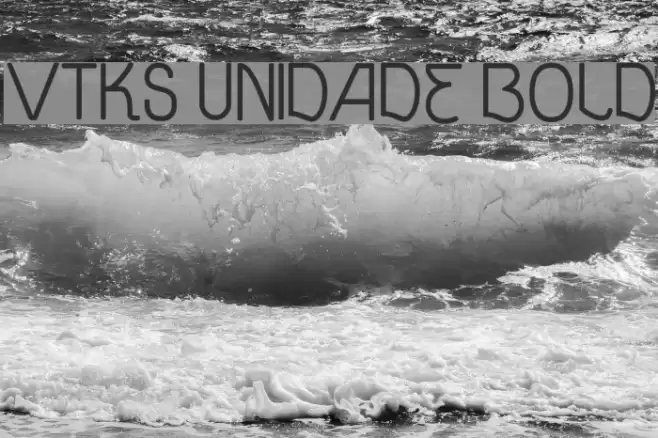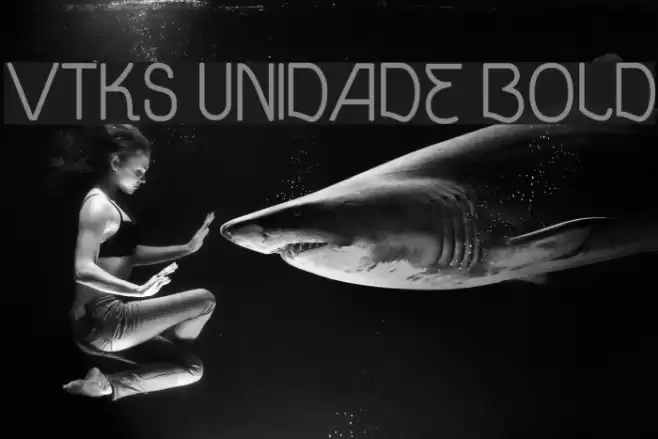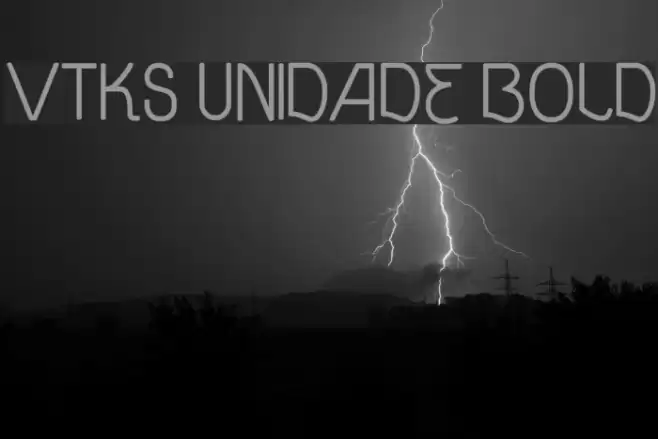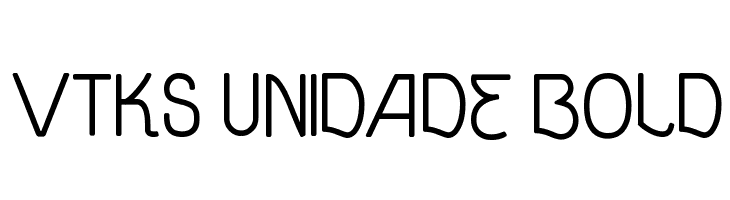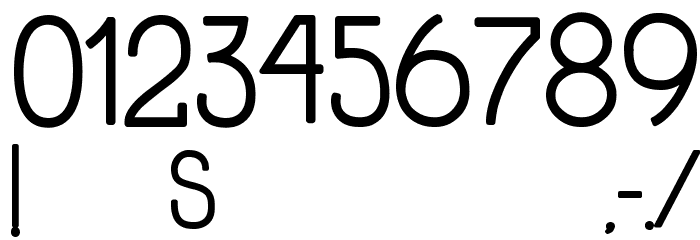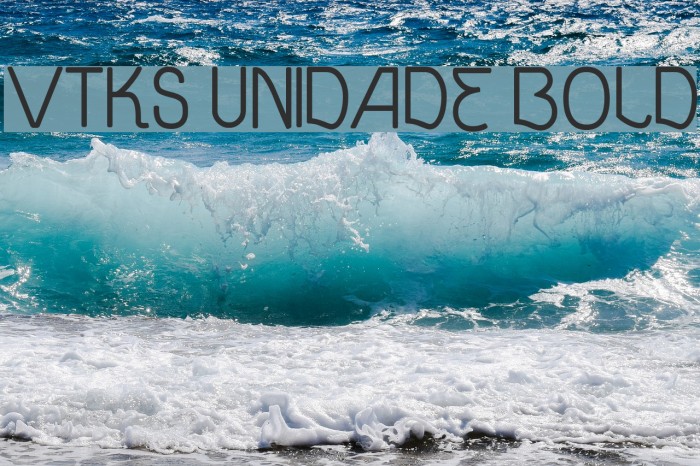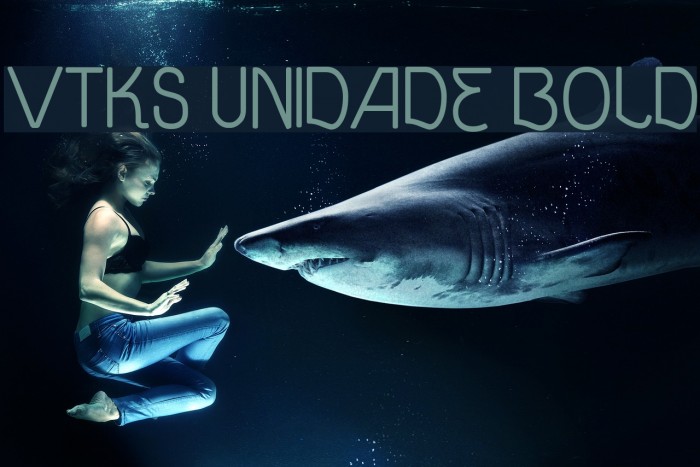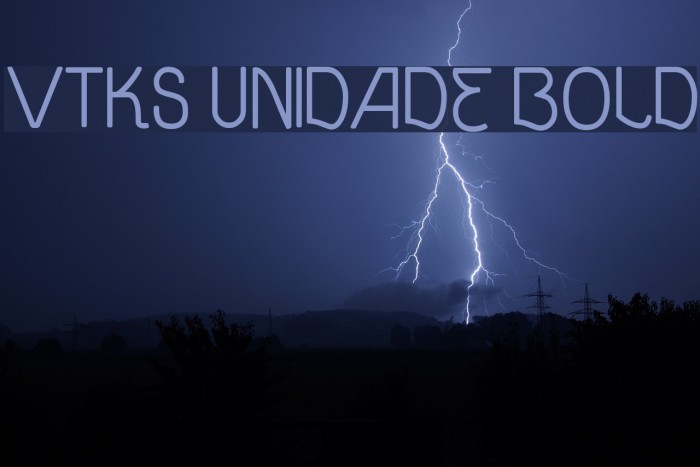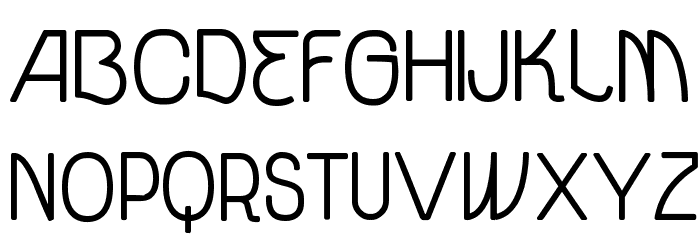
vtks unidade bold Font
vtks unidade bold Description
This font features a unique and modern design with a geometric and slightly futuristic aesthetic. The characters are constructed with clean lines and rounded edges, giving them a smooth and approachable appearance. The uppercase letters are particularly distinctive, with some characters incorporating unexpected curves and angles that add a playful yet sophisticated touch. The numerals are consistent with the overall style, maintaining the same balance of curves and straight lines. This font is versatile, suitable for both digital and print media, and can be used to create a contemporary and stylish look.
A modern, geometric font with clean lines and rounded edges, offering a playful yet sophisticated style from Uncategorized fonts.
- Proposed Projects: Ideal for branding, advertising, posters, and digital media where a modern and stylish look is desired.